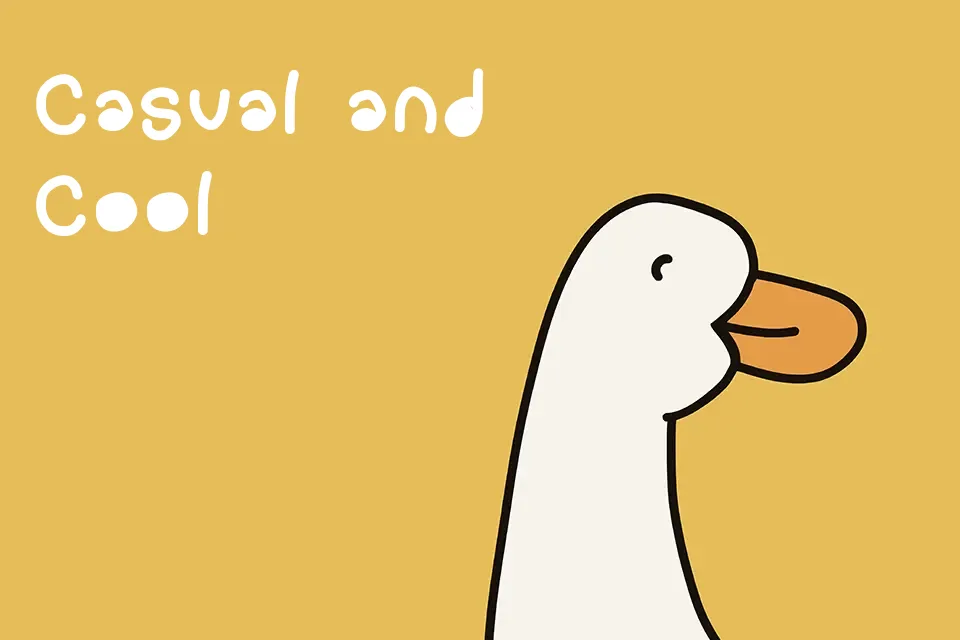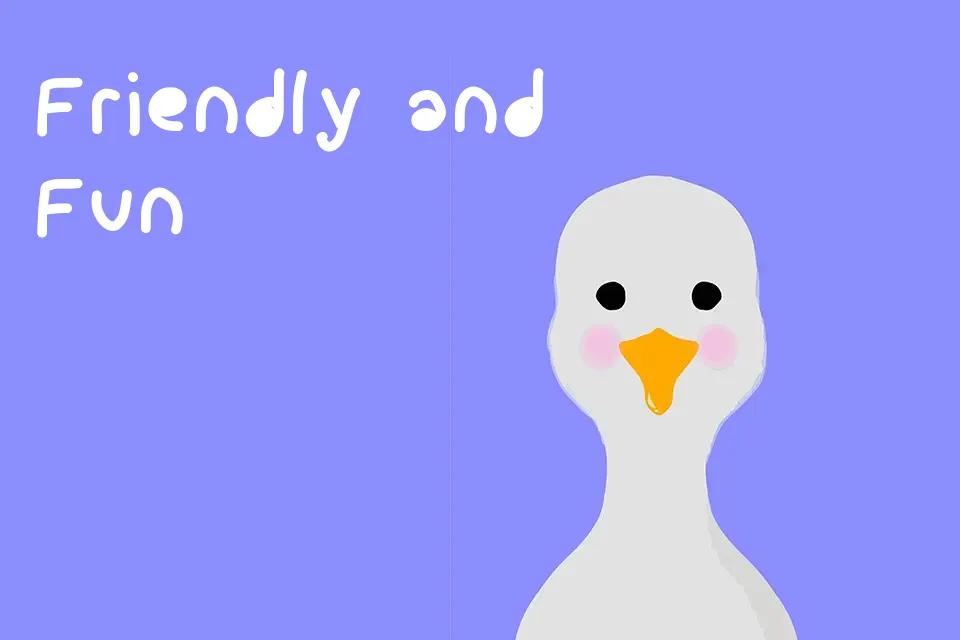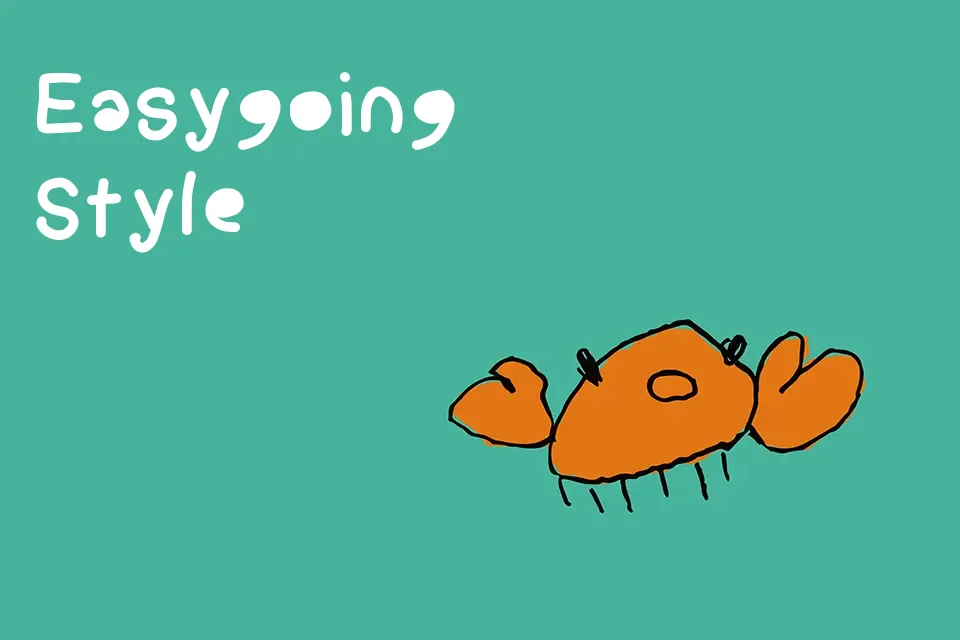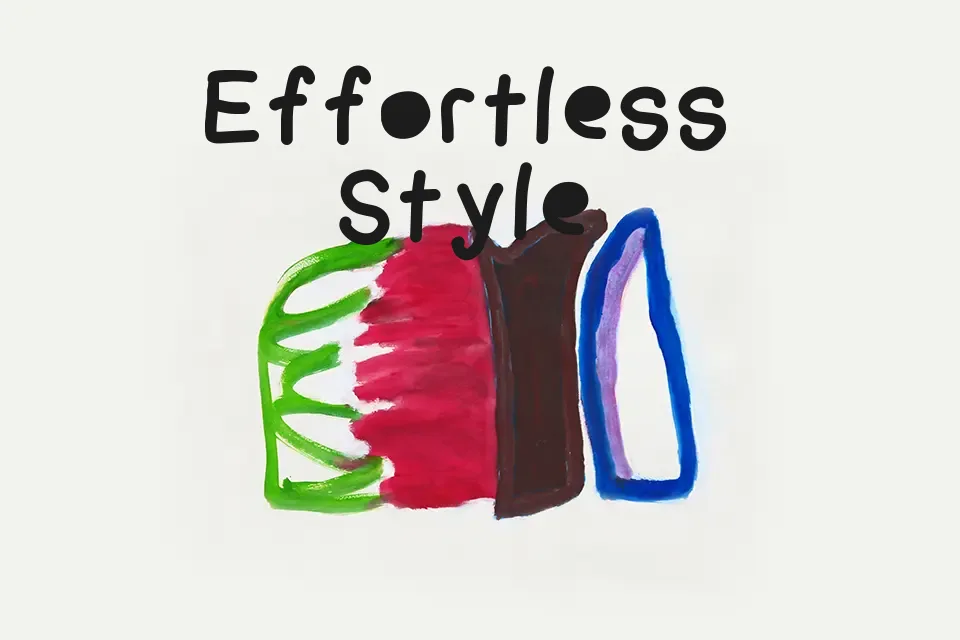
Pocket Font
Designed by Geronimo Font Studios
Pocket Font features a distinctly casual comic aesthetic characterized by its balanced, hand-drawn strokes and organic rhythm. The letterforms display a subtle irregularity that emphasizes human-like qualities, maintaining an approachable and relaxed appearance across various applications. Consistent proportions and open counters ensure the characters remain easy to distinguish in short display text and vibrant headlines. This typeface performs beautifully for children’s apparel graphics, engaging gaming menus, and casual packaging designs where a playful tone is required. However, the informal structure and decorative casualness become less effective at smaller sizes, making it less suitable for long paragraph text. The slightly loose spacing helps maintain clarity in larger headlines but reduces continuous reading comfort.
Best For: children’s apparel graphics, engaging gaming menus, casual product packaging, comic book headers
Not Ideal For: dense editorial layouts, long paragraph text, corporate financial reports, small interface labels
Perfect for gaming, headline, and kids, with a cute and cartoon style.